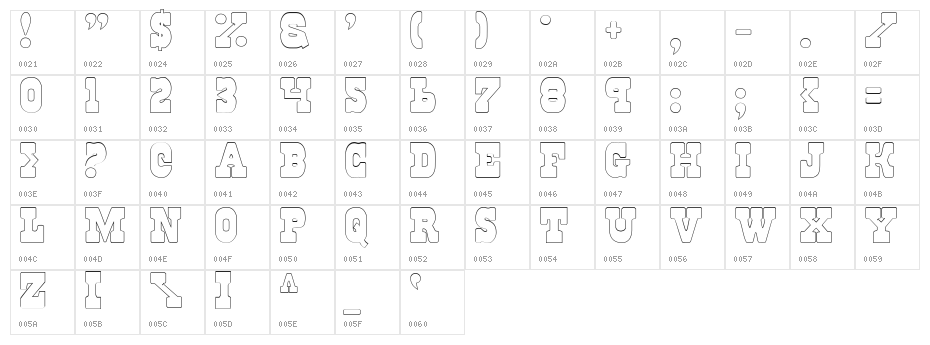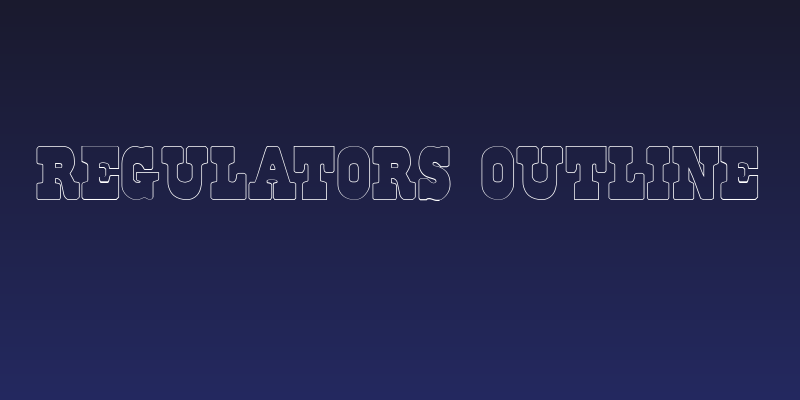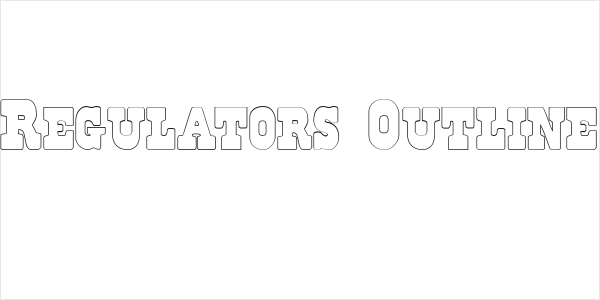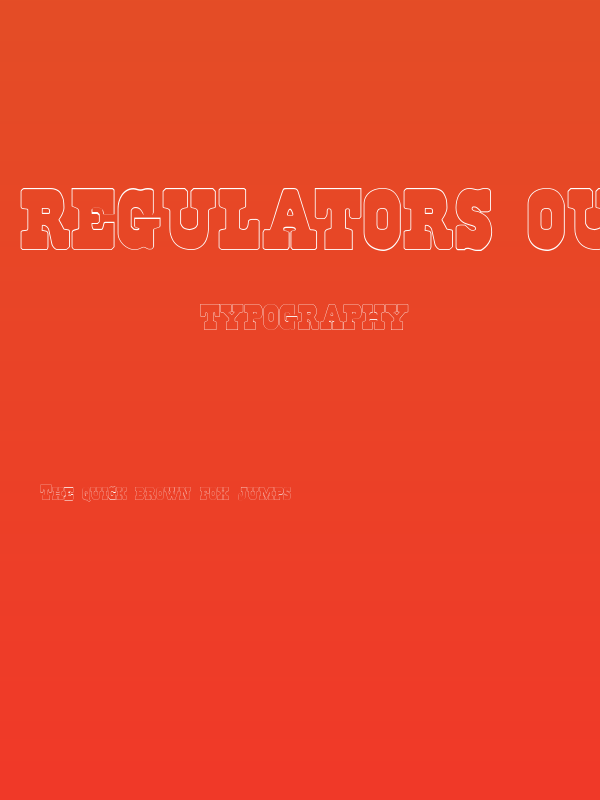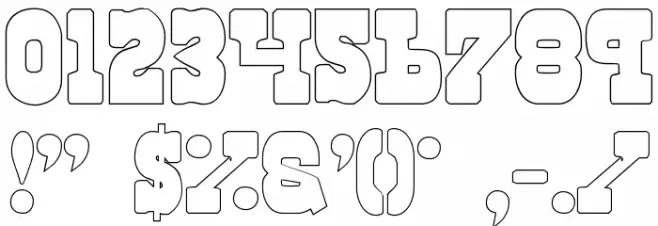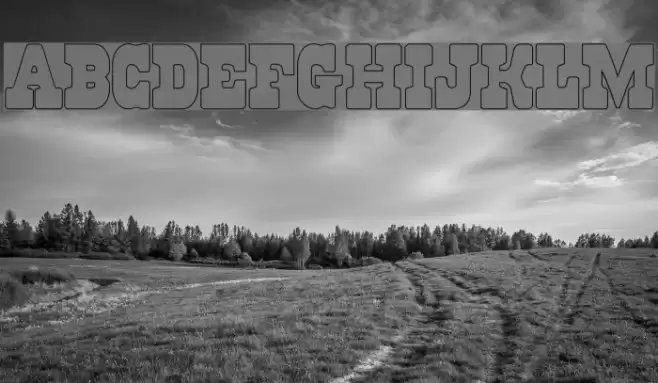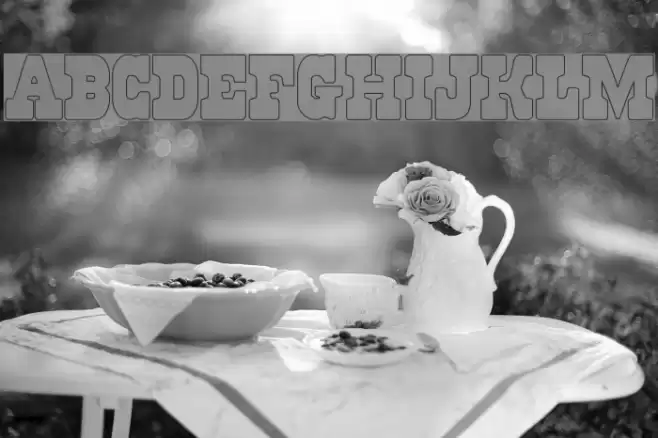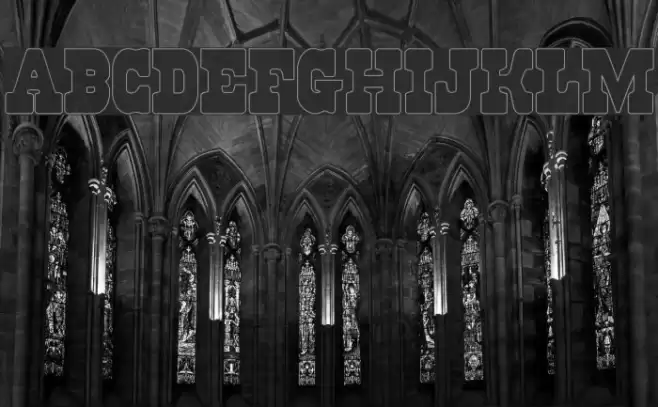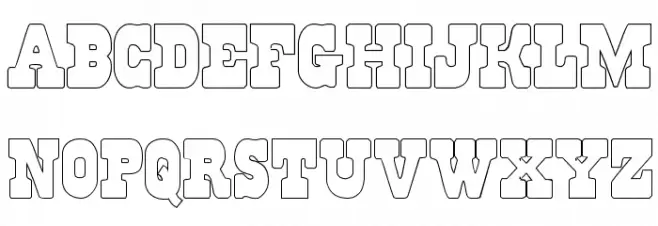
Regulators Outline Font
Regulators Outline Description
This font features a bold, outlined style that gives it a strong and impactful presence. The characters are uppercase and lowercase with a consistent, thick outline that emphasizes each letter's shape. The design is reminiscent of classic Western or collegiate styles, with a modern twist due to the outline effect. The numbers and special characters follow the same bold outline, ensuring uniformity across all glyphs. This font's unique style makes it stand out, making it ideal for attention-grabbing headlines or titles.
REGULATORS-OUTLINE UPPERCASE
REGULATORS-OUTLINE LOWERCASE
REGULATORS-OUTLINE OTHER CHARS